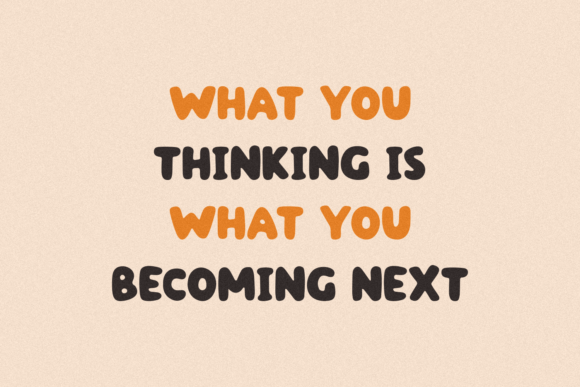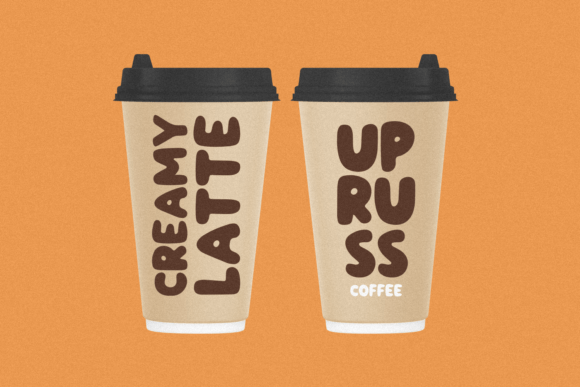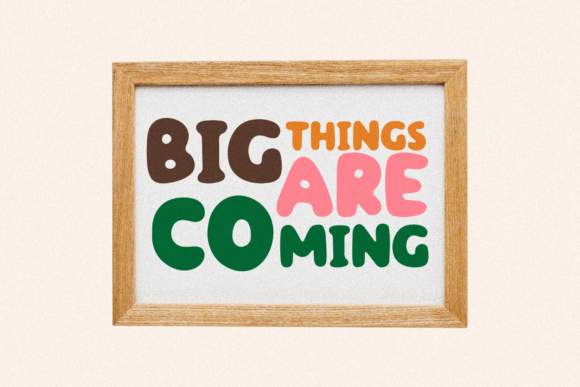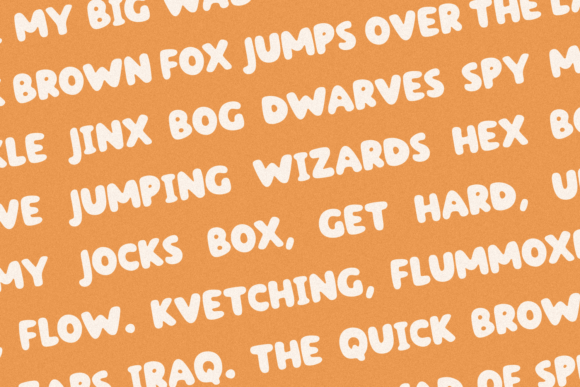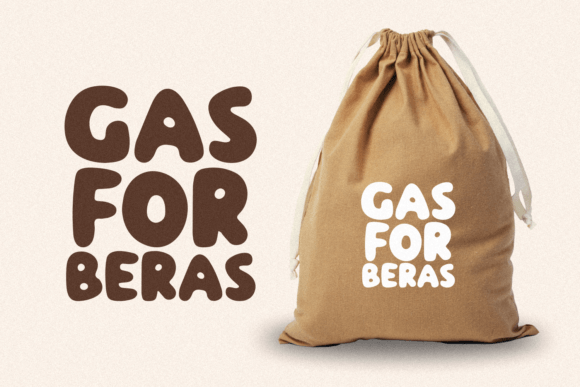
Introduction to Donut Power Font
Donut Power is a childish, easy-to-read display font that conveys impeccable friendliness.
Whether you’re using it for crafts, digital design, presentations, or making greeting cards, this font has the potential to become your favorite go-to font, no matter the occasion .